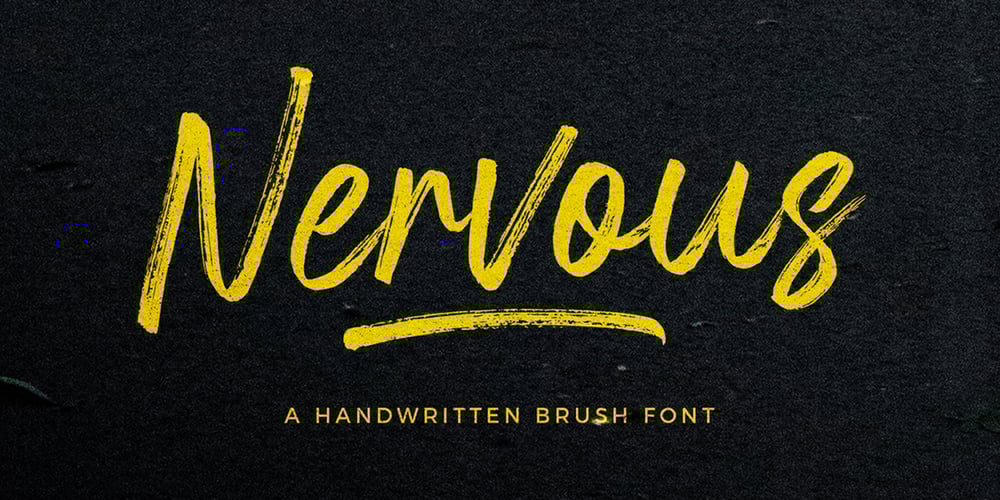
Nervous
Nervous font
Nervous Font Family was designed by Bagas Ardiatma and published by Trustha. Nervous contains 2 styles and family package options. Nervous is a handwritten brush font with a bold twist. Nervous perfect for branding, logo, poster design, book covers, invitations, packaging, headers, greeting cards, apparel designs, fashion campaigns, newsletters, album covers, quote and many more. It will add an authentic spark to any creative project!